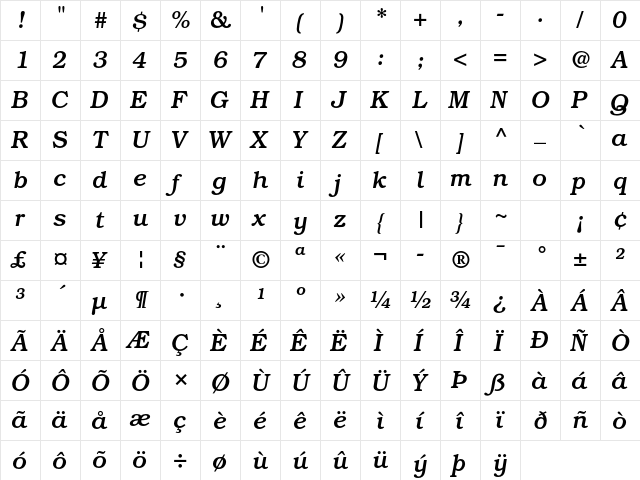
ITC Bookman Std Medium Italic Font Preview
ITC Bookman Std Medium Italic
ITC Bookman Std Medium Italic Font Details
| Style | Medium Italic |
| Designer | Ed Benguiat |
Design Context for ITC Bookman Std Typeface
ITC Bookman Std offers clean, dependable letterforms without strong stylistic allegiance, making it a practical choice for designers who need flexibility. The dynamic lean of this cut emphasises speed and emphasis in any layout.
Pro Tip: Use ITC Bookman Std for emphasis, pull quotes, and subheadings where its slanted energy can add rhythm to the layout.